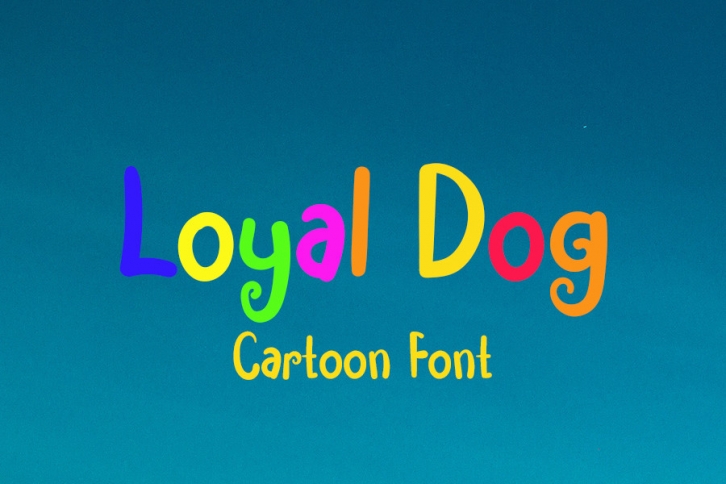
Loyal Dog is a chic display font with an impeccable form, inspired by a timeless calligraphy. This font is perfect for children themed designs, especially when combined with bright colors.